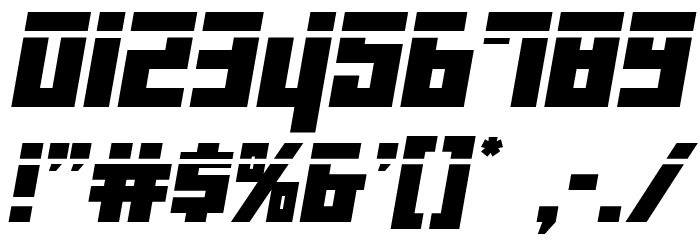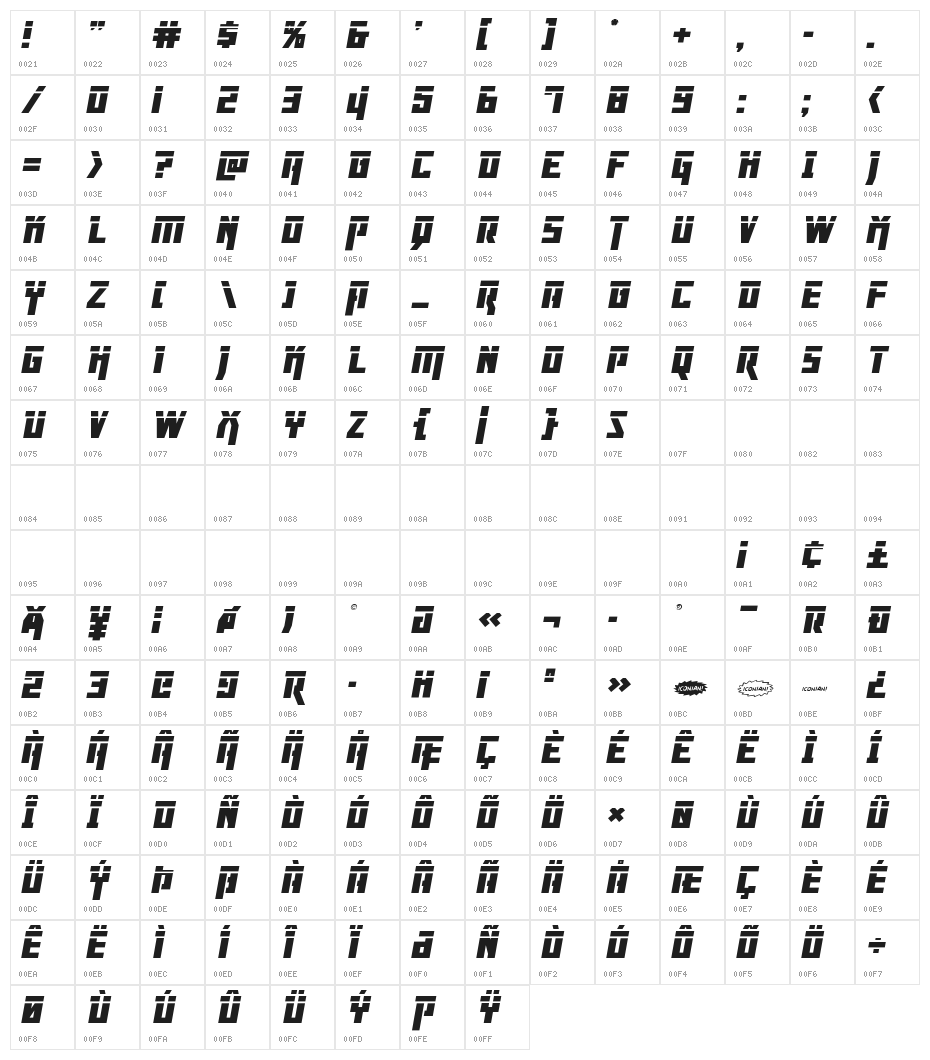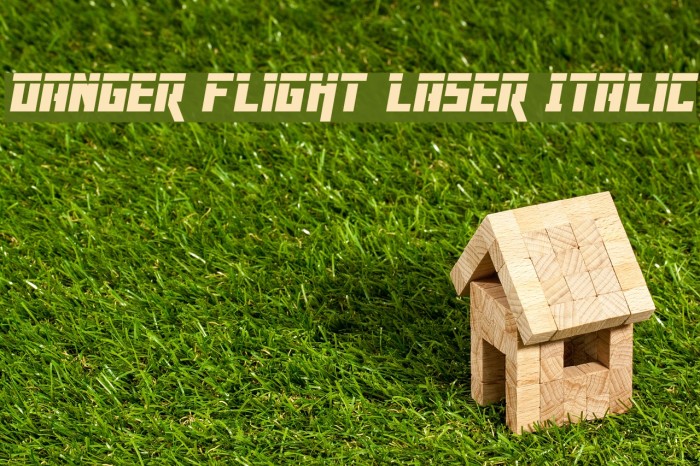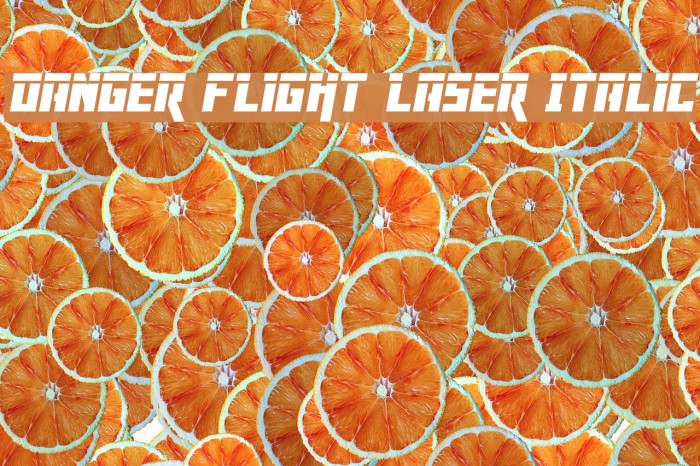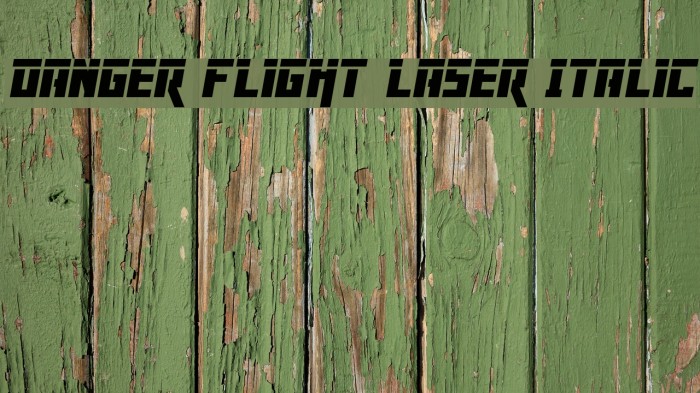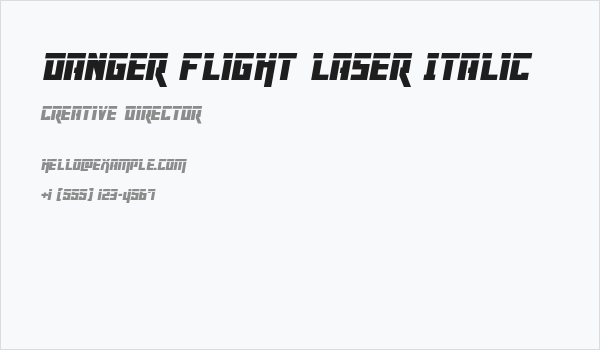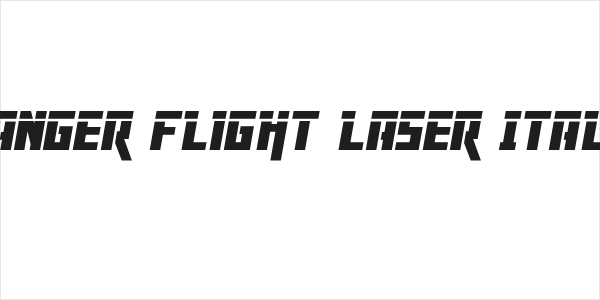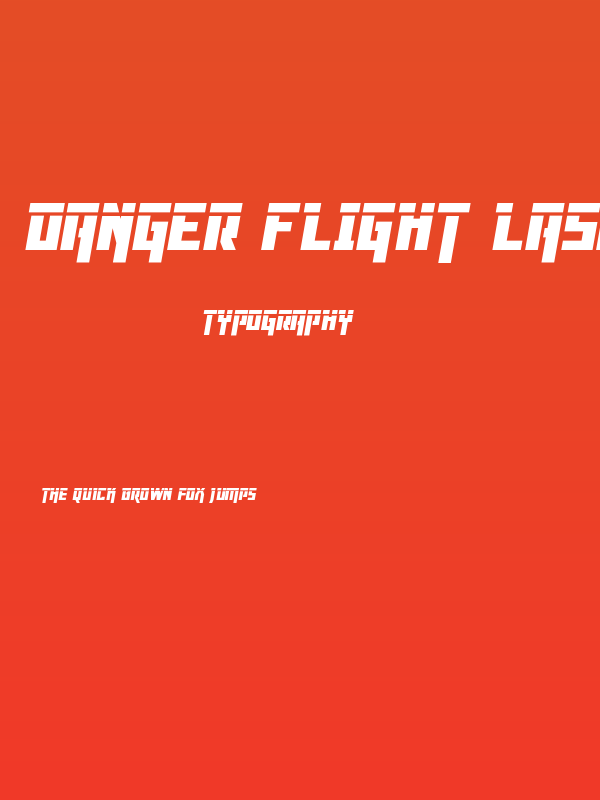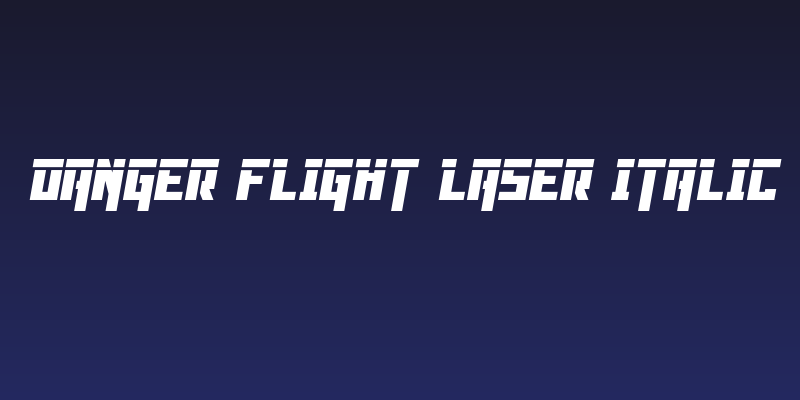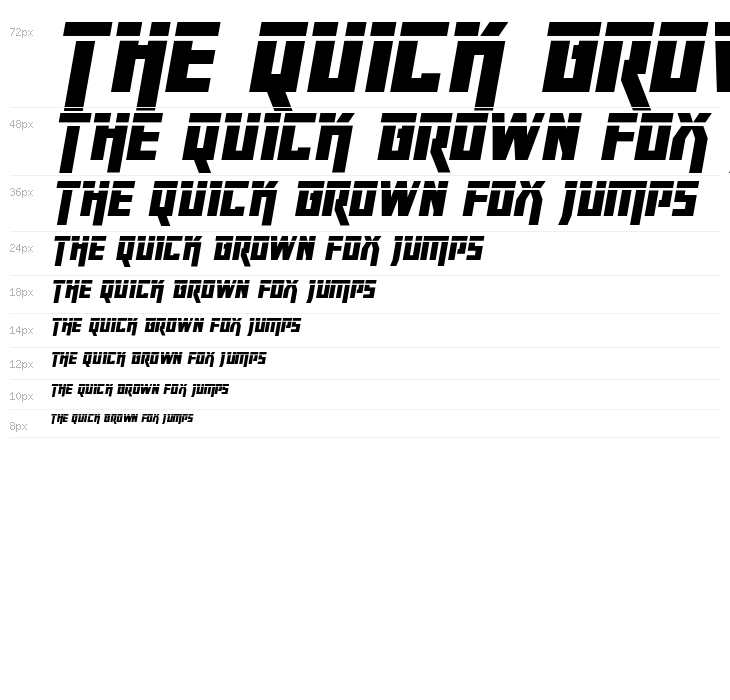
Danger Flight Laser Italic Font
Danger Flight Laser Italic Description
This font features a bold, angular design with a futuristic and dynamic appearance. The characters are sharply cut, giving a sense of speed and motion, reminiscent of digital displays or sci-fi aesthetics. The italic slant enhances the impression of movement, making it ideal for projects that require a sense of urgency or modernity. The uppercase and lowercase letters maintain a consistent style, with geometric shapes and sharp edges. Numbers and special characters follow the same angular theme, ensuring uniformity across all text elements.
| Proposed Projects | Ideal for sci-fi themed designs, video game titles, tech branding, and dynamic posters. |